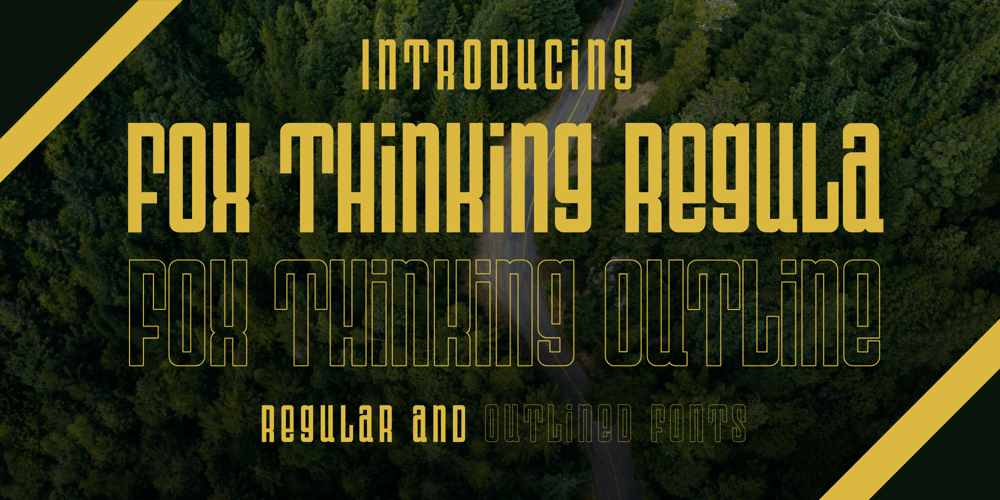
Fox Thinking Outline Font Family was designed by Rattana Rattanawan and published by Fox7. Fox Thinking Outline contains 2 styles and family package options. Fox Thinking is a cool and Outstanding slab serif font. This font offers both regular and outlined variations, this font is perfect for publications, logos, business cards, or printed on t-shirts, this font will look outstanding on everything, no matter the topic. This font will be an incredible asset to your fonts’ library, as it has the potential to elevate any creation.